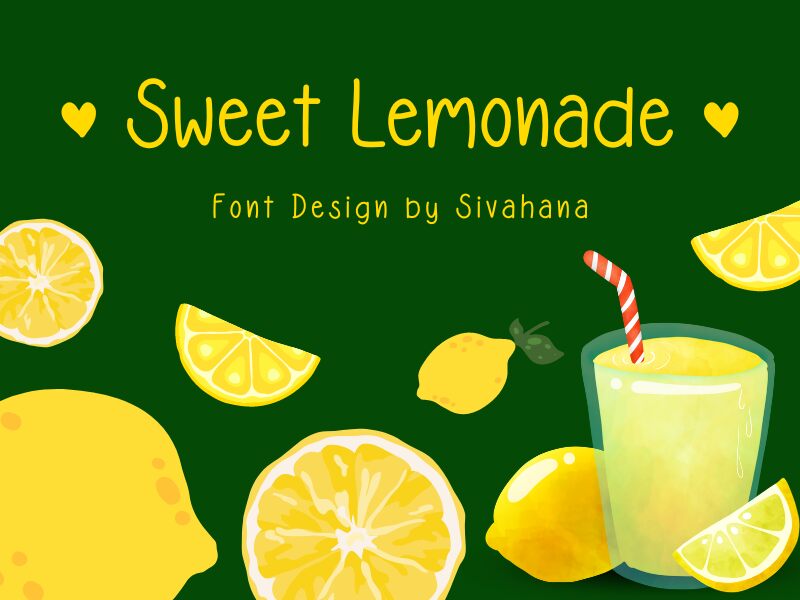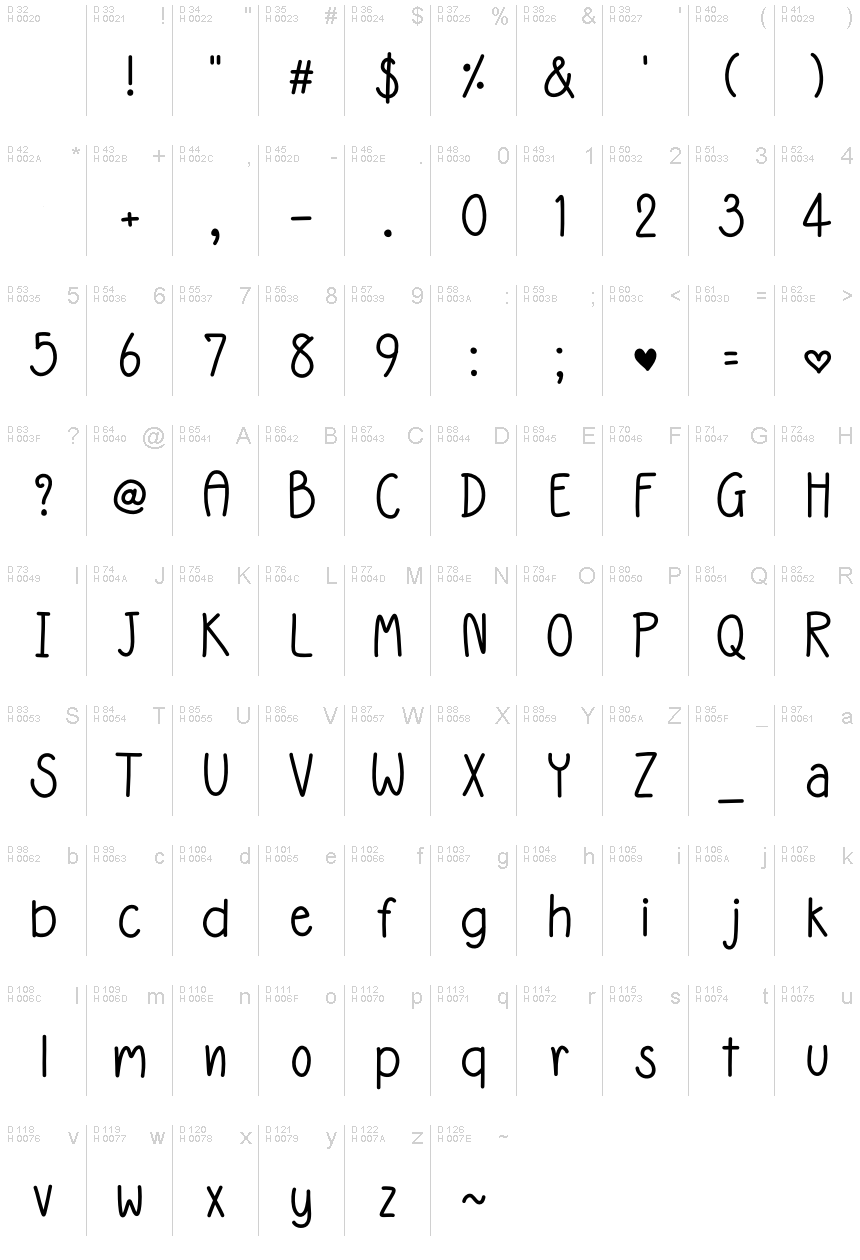
Sweet lemonade Regular
Sweeping and whimsical, "Sweet Lemonade" by Sivaporn Yutitham exudes a delightful, handcrafted aesthetic. This charming font boasts organic, flowing strokes that mimic the natural movement of a skilled calligrapher's pen. With its playful, yet refined sensibility, "Sweet Lemonade" radiates a sense of warmth and approachability, making it an enchanting choice for a variety of design projects.
The versatility of "Sweet Lemonade" lends itself to diverse applications, from greeting cards and invitations to branding and packaging. Its whimsical yet sophisticated style effortlessly captures the essence of playful, summery themes, making it an ideal selection for projects that seek to evoke a lighthearted, joyful atmosphere. Whether crafting a memorable logo, designing an eye-catching social media post, or adding a touch of handcrafted charm to print materials, "Sweet Lemonade" by Sivaporn Yutitham is sure to captivate and delight.